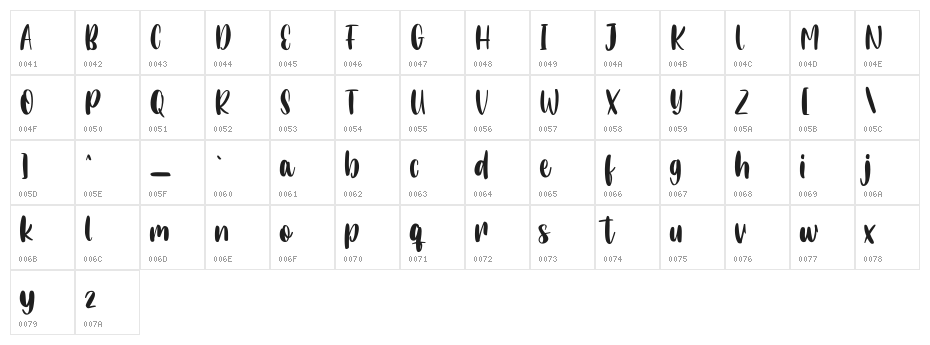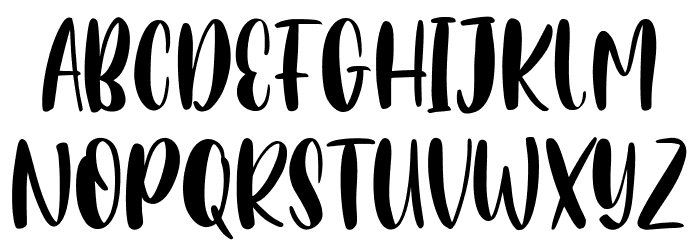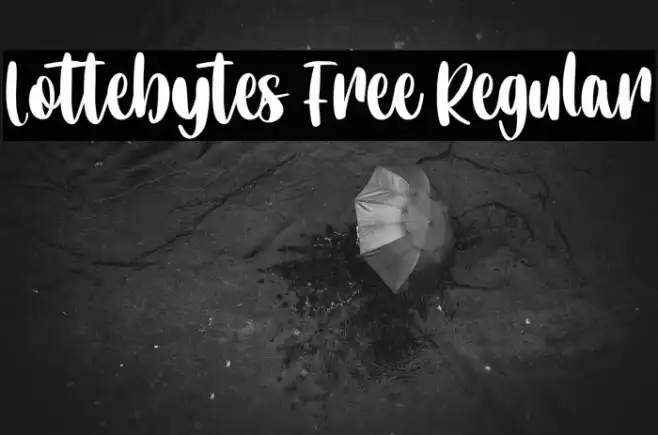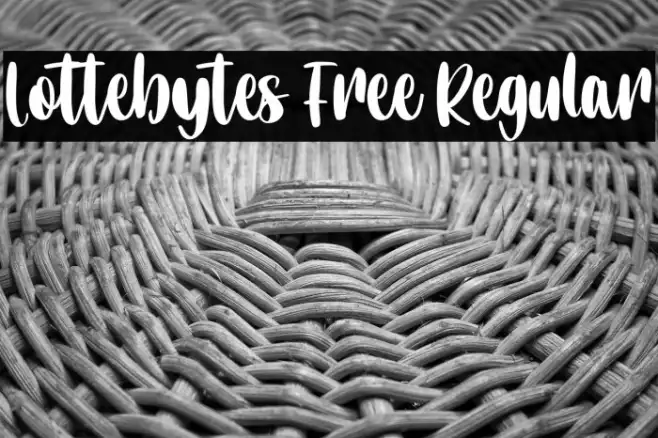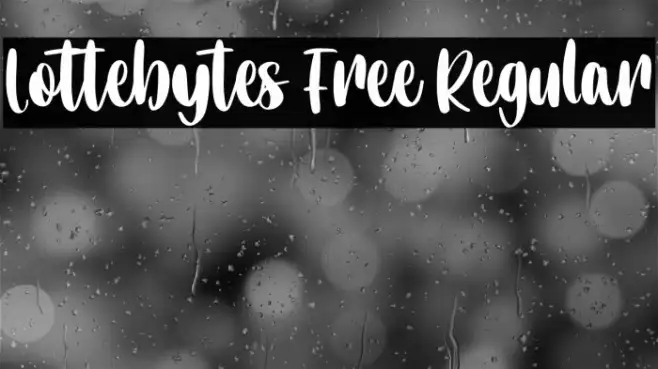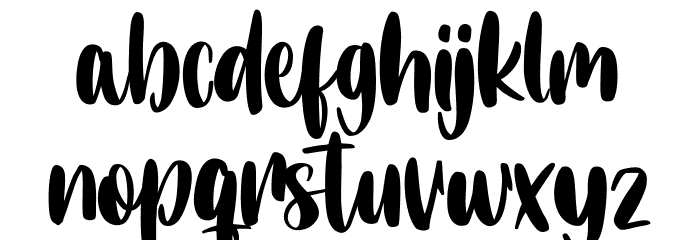
Lottebytes Free Regular Font
Lottebytes Free Regular Description
This font features a bold and expressive handwritten style, characterized by its thick, flowing strokes and playful curves. The uppercase letters are tall and slightly condensed, while the lowercase letters maintain a consistent height with a smooth, connected appearance. The overall look is dynamic and lively, making it suitable for projects that require a personal touch. The font's unique style is accentuated by its high contrast between thick and thin strokes, adding to its visual appeal. It is well-suited for creative and informal designs, offering a sense of warmth and approachability.